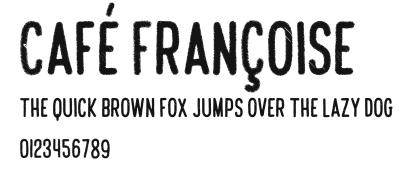
Café Françoise Preview
• Font Name: Café Françoise
• Full Font Name: Café Françoise
About Café Françoise.otf
Café Françoise.otf is a modern, elegant sans-serif font designed for ultimate readability and visual harmony. Perfect for branding, headlines, web design, and print materials.